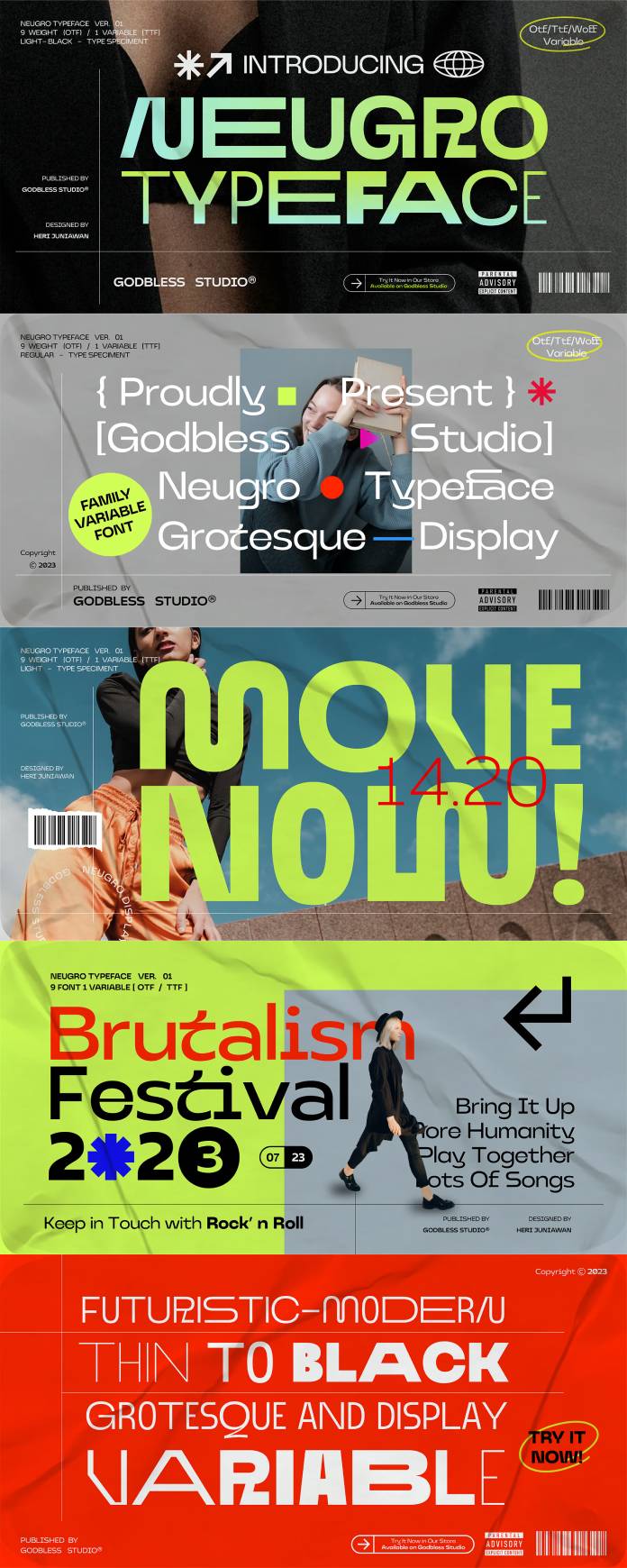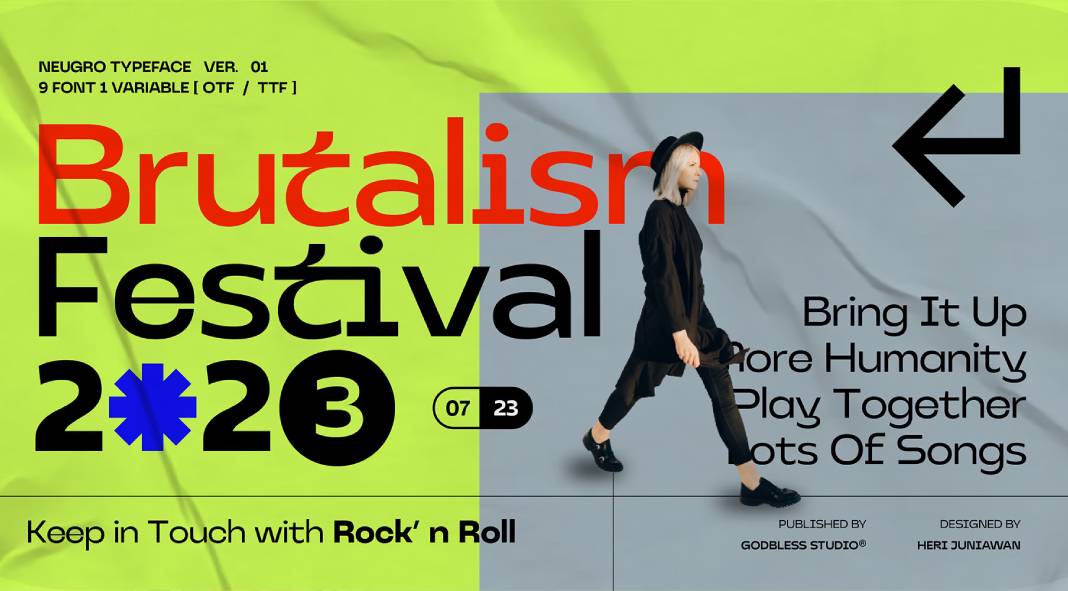
The Neugro Typeface: A Fusion of Experimental Modernity and Elegant Strength
Godbless Studio’s Neugro typeface is an artistic marvel, born from the fusion of experimental design elements with a robust and elegant character. This experimental sans-serif font embodies a unique charm, perfectly suited for display purposes while offering a versatility that seamlessly adapts to various design needs, from text blocks to logos, branding, titles, and posters.
With its orthogonal ends and concise ascenders and descenders, Neugro stands out as an ideal choice for conveying messages across diverse design mediums. Its adaptability shines through in the amalgamation of different cuts, offering a wide spectrum of design possibilities across nine stroke weights, ranging from thin to condensed thin, expanded, and bold iterations.
The font’s versatility extends beyond its weight variations. Neugro boasts support for over 200 languages, facilitating global communication without compromising its aesthetic appeal. Moreover, the inclusion of distinctive and contemporary alternative characters adds depth and individuality to designs, fostering a strong sense of identity and personality.
Neugro’s charm lies not just in its visual appeal but also in its functionality. It’s a font that transcends boundaries, fitting seamlessly into various design contexts and purposes. From concise text snippets to eye-catching headlines, Neugro’s adaptability shines through, elevating the visual impact of any design it graces.
One of the font’s most remarkable qualities is its ability to evoke a sense of modernity while exuding an aura of timeless elegance. The careful balance between experimental elements and a strong, refined character renders Neugro a font that’s not just a typographic tool but an artistic statement.
In conclusion, Neugro isn’t merely a typeface; it’s a canvas waiting for creative minds to explore its vast potential. Its ability to merge experimental design with an elegant demeanor makes it a must-have in every designer’s toolkit. From its comprehensive language support to its diverse range of weights and unique characters, Neugro stands tall as a font that deserves a place on every designer’s desktop, offering a gateway to boundless creativity and expression.